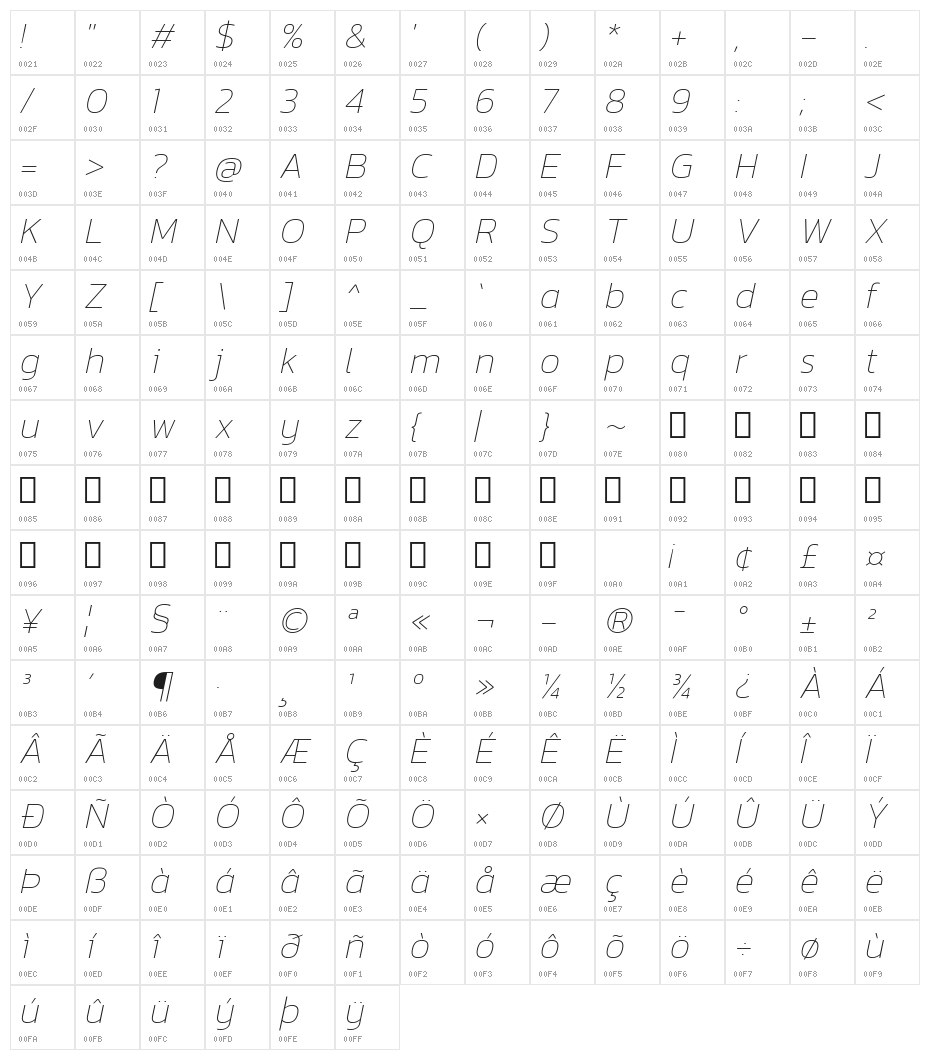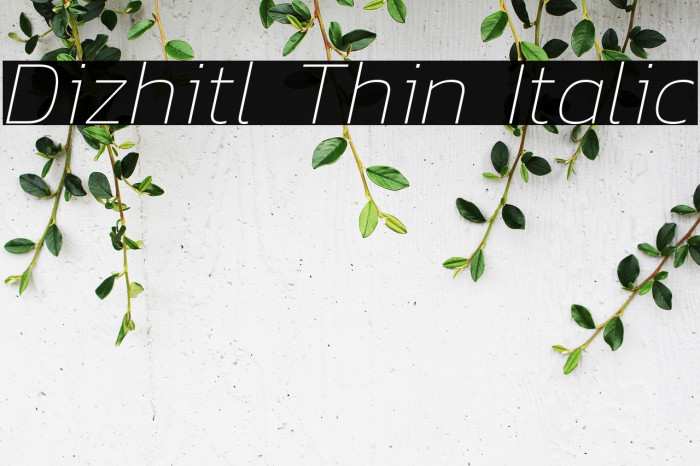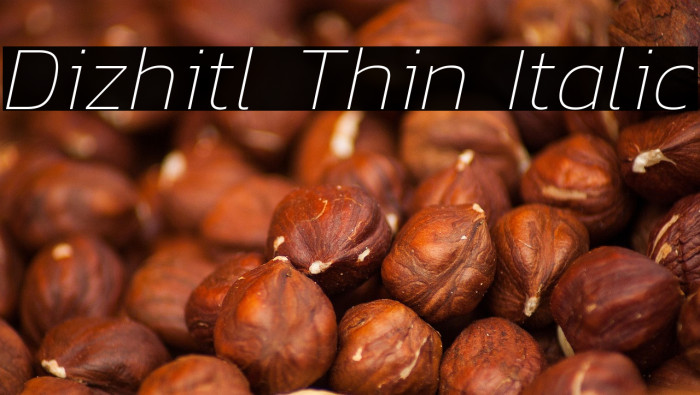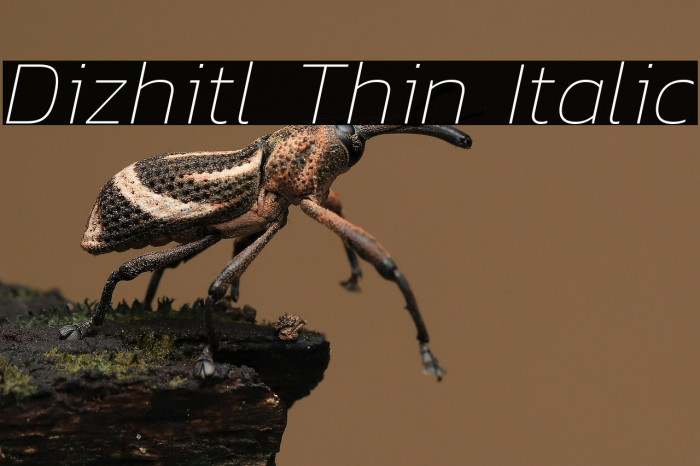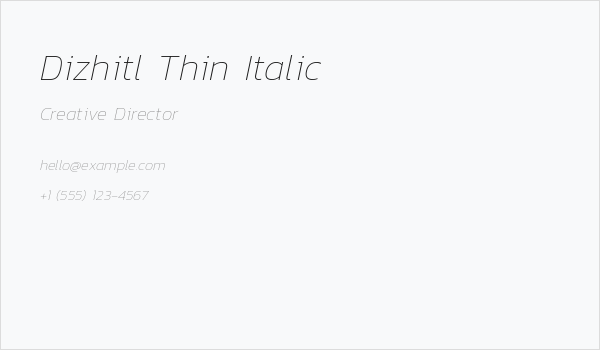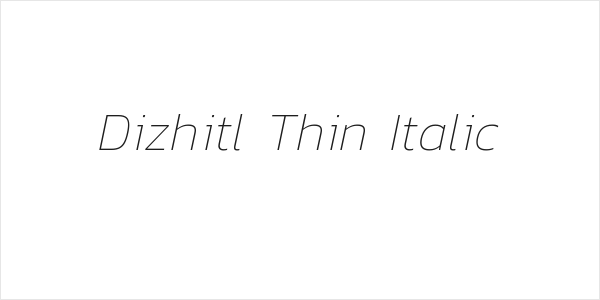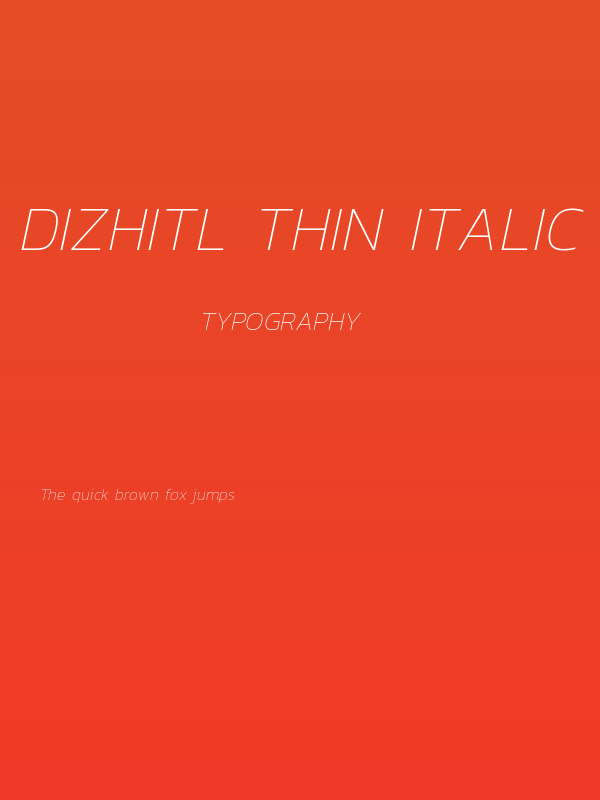
Dizhitl Thin Italic Font
Dizhitl Thin Italic Description
This font features a sleek and modern design with a thin, elegant structure. The characters are slightly slanted, giving it an italic appearance that adds a sense of motion and sophistication. The strokes are consistent and delicate, providing a clean and minimalist aesthetic. The uppercase and lowercase letters maintain a uniform style, with smooth curves and sharp edges that enhance readability. The numerals and special characters are designed to match the overall style, ensuring a cohesive look across all text elements.
| Proposed Projects | Ideal for modern branding, fashion magazines, elegant invitations, and minimalist web design. |